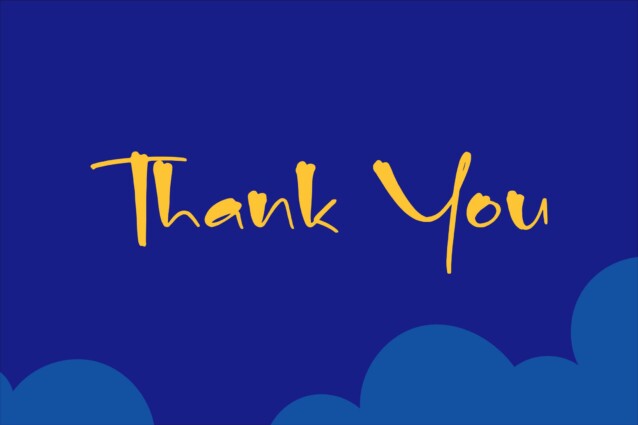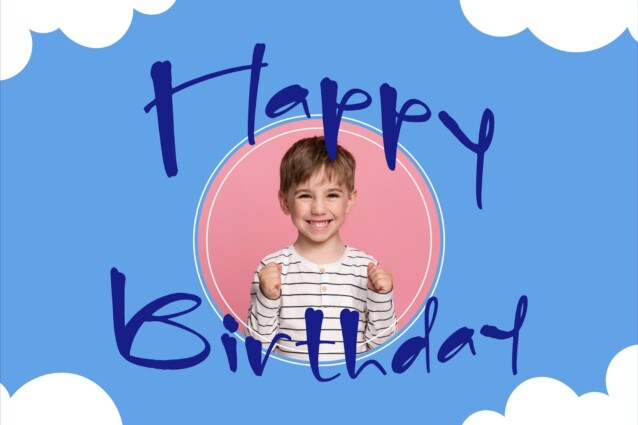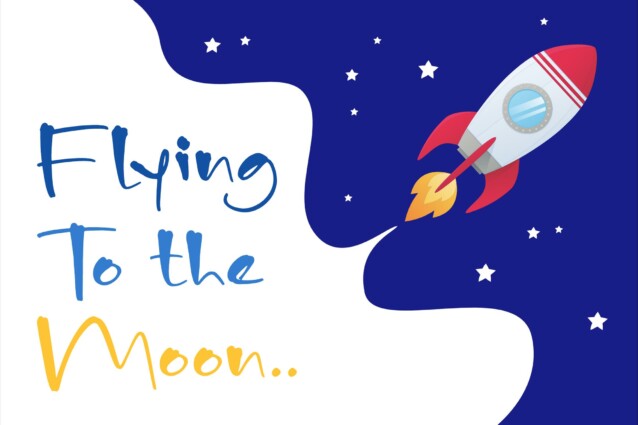
Monstar Jackline Font
Monstar Jackline Font is a Playful Display Font, suitable for any projects such as: logos, branding projects, homeware designs, product packaging, mugs, quotes, posters, shopping bags, t-shirts, book covers, name card, invitation cards, greeting cards, label, photography, watermark, special events, and all your other lovely projects that need a beautiful script taste.